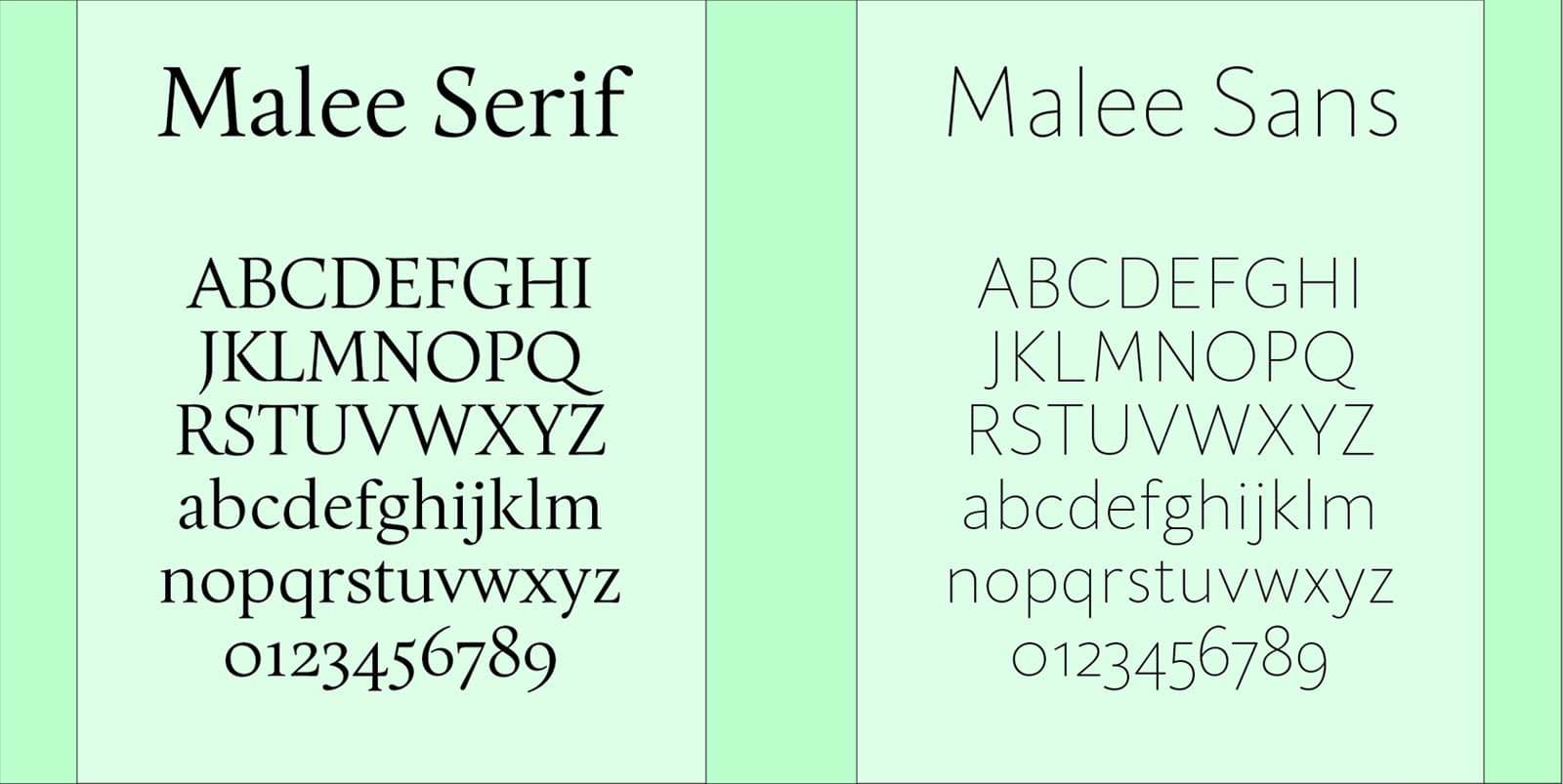
The Malee Scholarship: Interview with Chantra Malee Montoya-Pimolwatana
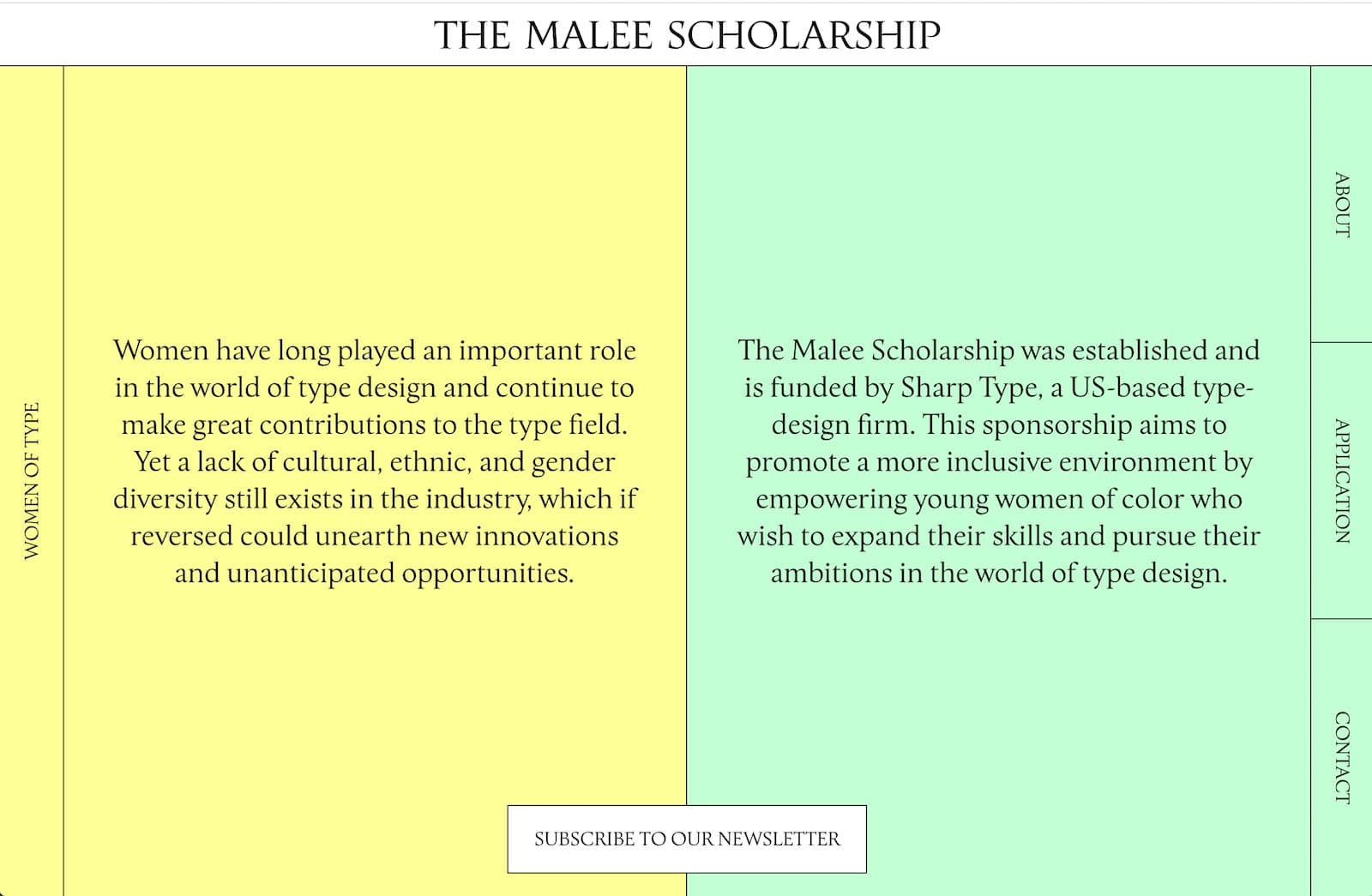
When did you realize the scholarship was necessary to help address the lack of representation of women of color in type design?
I grew up in a small New England town that was heavily rooted in the Anglo-American tradition and culture. I was part of a small percentage of people of color there, and I often felt isolated. I’ve taken that experience with me everywhere in my personal and professional life. When I first got into the type business, it was not much different than other industries I had worked in, primarily represented by a single demographic. But this time I was in a position to make a difference.
“Pay it forward” is mentioned on the site. What made you want to pay it forward with this scholarship?
This is a very important aspect of our philosophy at Malee. In my last year of high school, I was a recipient of a college fund by the Urban League of Rhode Island. The money was a great help, but what was most profound to me was the recognition and support, and vote of confidence in myself. That was a formative experience for me as I was entering a new stage of my life. Malee Scholarship is my form of paying it forward. So I ask those who are awarded by us to think of it when they are in the position to help and find their own way to give back.
What was the inspiration for the typefaces Malee and Malee Sans?
Both custom typefaces originated from a single logotype drawn by Tien Min Liao. She is a talented designer, lettering artist, and type designer from Taiwan based in NYC. We were fortunate to meet her the previous year and decided to commission her to draw a custom logotype that felt classic and scholarly, much like Roman lettering on an academic diploma. We gave Liao some image references from our recent trip to Lyon, France, where they have one of the best stone carving museums in the world. She took it and developed a beautiful style for us, that would become the framework for a complete custom serif and sans typeface.
My-Lan Thuong is one of the most recent additions to Sharp Type, the type foundry I co-founded with Lucas Sharp. She is an incredible type designer and stone carver, so developing Malee came naturally to her. She took Liao’s work and created a full ASCII to use for the website and branding assets. When we were developing the website, we recognized the need for greater typographic contrast on the site. Our designers longingly wished for a complimentary sans, to which we replied, “We can do that!”. Malee Sans was then designed using the skeleton of the Serif.
Tell us a bit more about the design of the Malee Scholarship website? How did the branding and design develop? Was it a collaborative process?
The Malee Scholarship was a very fun project as we got to collaborate with incredible talent throughout the entire process. For branding and website design, we worked with What The Studio. We first came across their work after seeing their beautiful execution of a branding project for the Netherlands Theater Festival, which also uses Sharp Grotesk. Beyond design, we discovered we had much in common. Sara and Ekhiñe, are like Lucas and myself, partners in life and work. They are Spanish designers based in Amsterdam, and we met them in Madrid where we were based at the time. When Malee began to develop I thought of them straightaway. I gave What The a loose outline of what I was looking for, aesthetically and conceptually.They came back with one of the most thorough presentations I’d ever seen, and we selected a solid direction straight away.
The theme was education, so the website references classic paper folders, like the ones we used in school. This influenced the pastel color palette and system of tabs. What The proposed the idea of a “Women of Type” section to showcase existing typefaces designed by historic and contemporary female type designers from around the world. We reached out to some of our favorite designers in hopes that we could include their typeface, and we got an amazing response. The beauty of this section is that it will continue to grow with many other fonts by women, and with the work of our future applicants.